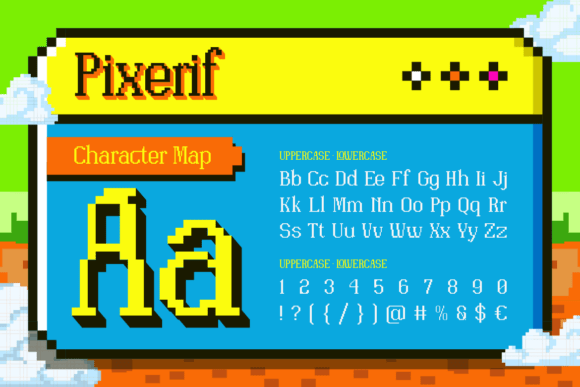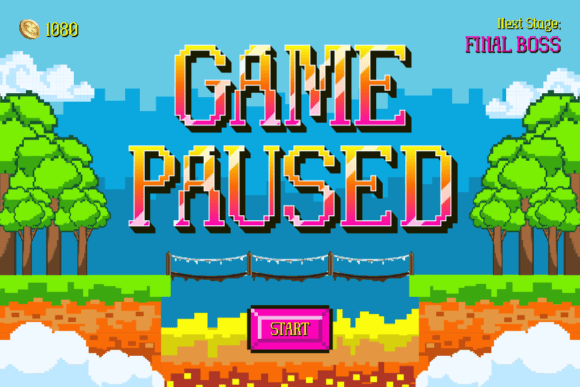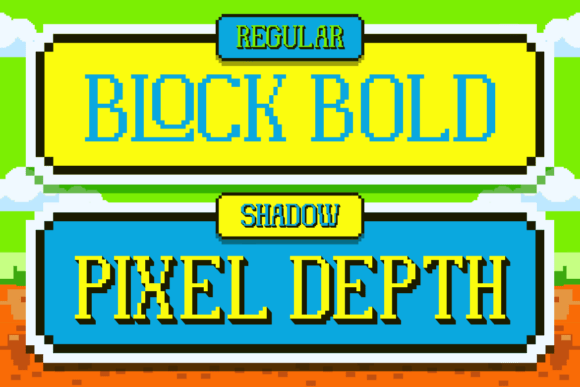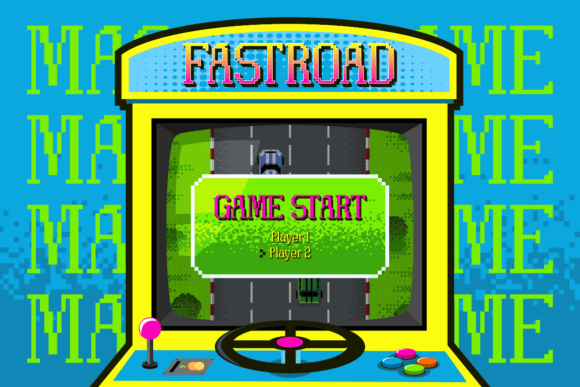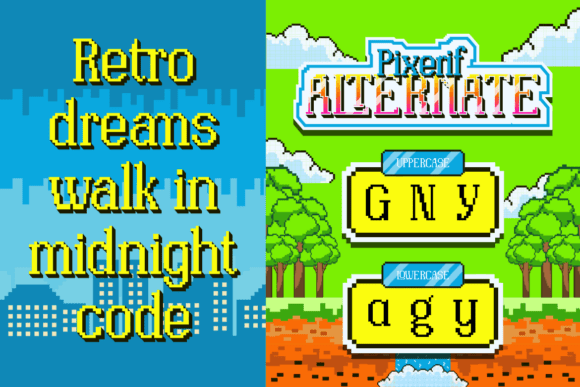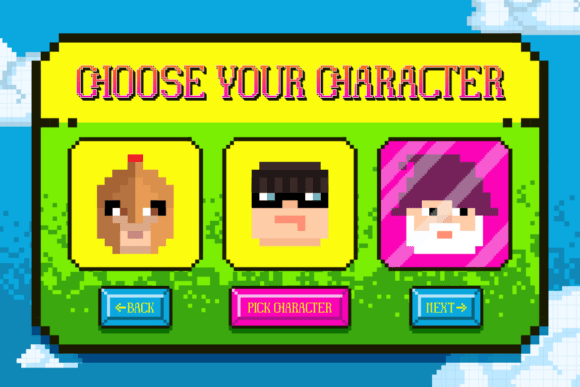
Introduction to Pixerif Regular Font
Do you remember the rush of excitement when you first booted up your old console and played your favorite 8-bit games? The nostalgic sound effects, the pixelated characters, and the simple yet addictive gameplay all came together to create an unforgettable experience. For designers, capturing that same retro charm can be a challenge, but with the right tools, it’s easier than ever. That’s where Pixerif Regular Font comes in – a playful display typeface that brings the magic of 8-bit gaming to your creative projects.
Pixerif Regular Font is a high-quality design resource that’s perfect for designers looking to add a touch of nostalgia to their work. With its clean lines, square-pixel aesthetic, and transparent background, it’s a versatile tool that’s sure to elevate any creative project. And the best part? It’s available for free download, making it an accessible addition to any design arsenal.
Key Features of Pixerif Regular Font
- Comes in a single weight, making it ideal for projects that require consistency
- Supports Latin-based languages, making it a versatile choice for global projects
- Designed to be highly legible, even at small font sizes, making it perfect for digital applications
Honest Review: Pixerif Regular Font
I recently had the chance to work with the Pixerif Regular Font, and I must say it’s a solid addition to any designer’s toolkit. This free download is a great resource for those looking to add some visual interest to their creative projects.
- High-quality design that looks professional and polished ✨
- Transparent background, making it easy to integrate with any design environment ✨
- Great for headings and titles, with a clean and modern aesthetic ✨
- Limited character set, which may not be suitable for longer blocks of text ⚠️
- No bold or italic variants, which can make it harder to create visual hierarchy ⚠️
Overall, I’m impressed with the Pixerif Regular Font. It’s a great design resource for anyone looking to add some personality to their creative project. With its high-quality design and transparent background, it’s a solid choice for designers of all levels.
Experiment with different font sizes, colors, and combinations to achieve unique and visually appealing designs. Use the font in conjunction with other design elements, such as images or graphics, to create a cohesive look.
The Pixerif Regular Font is ideal for creative projects that require a clean, modern, and professional look. Use it for branding materials, such as business cards or letterheads, or for designing marketing materials, like brochures or catalogs.